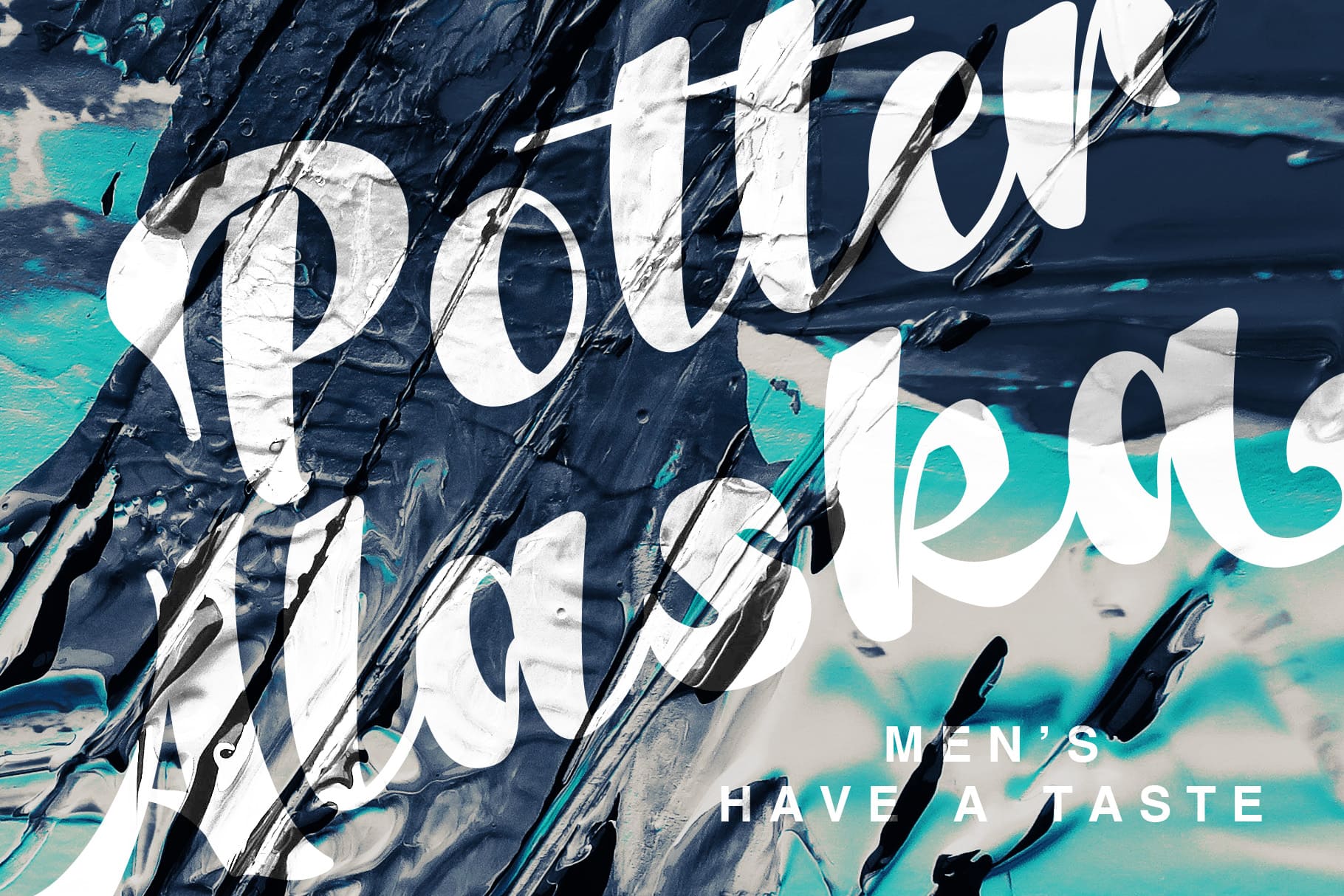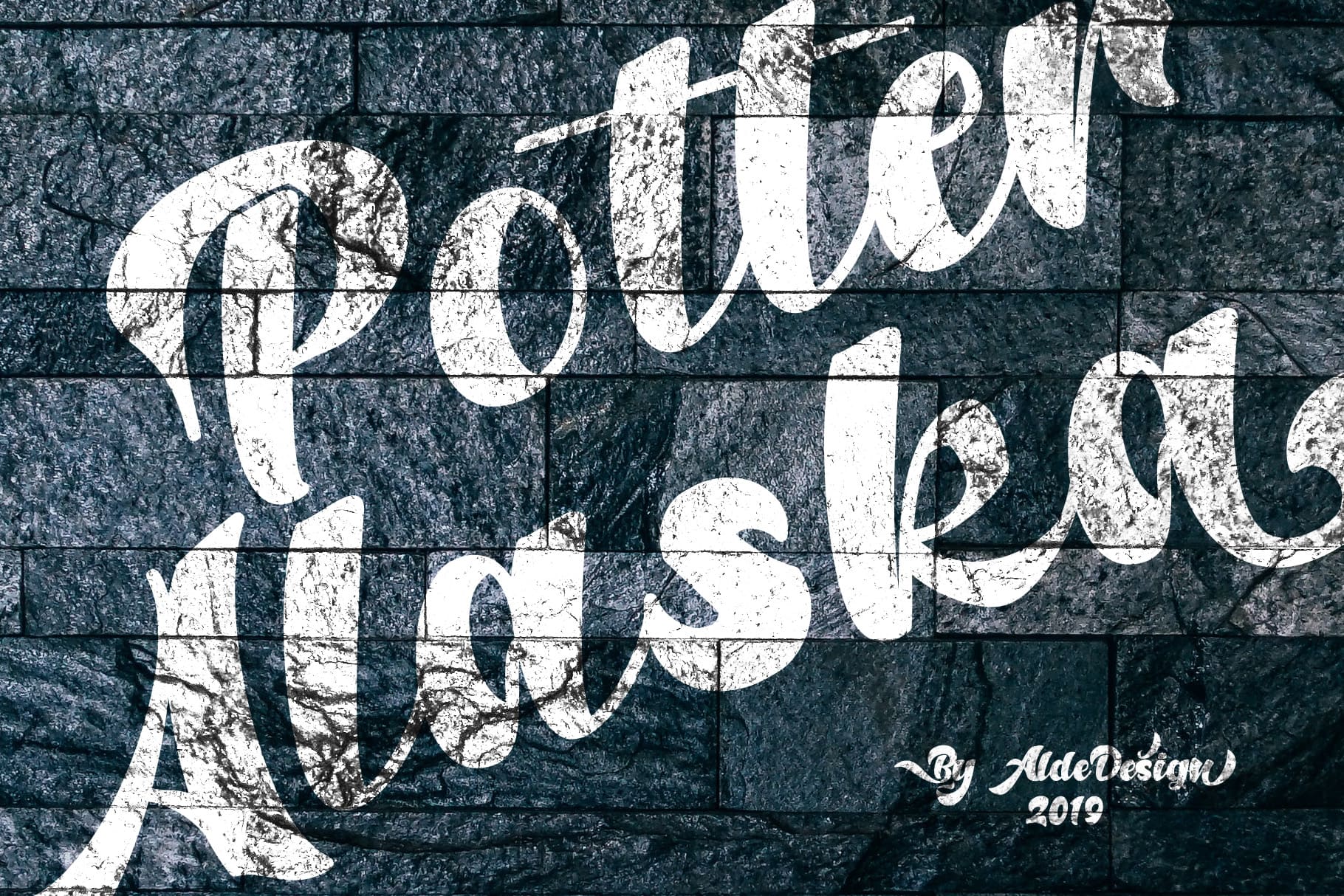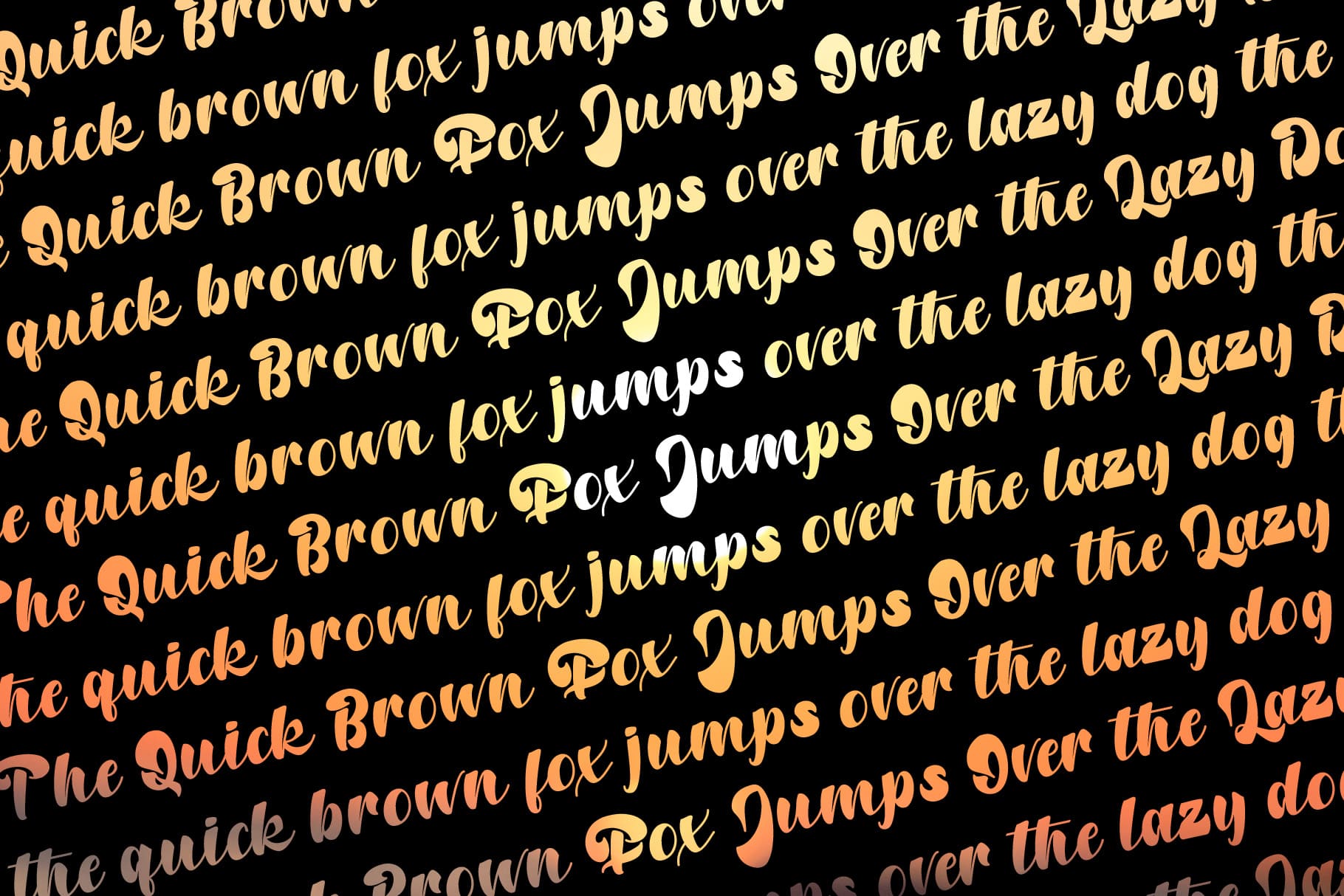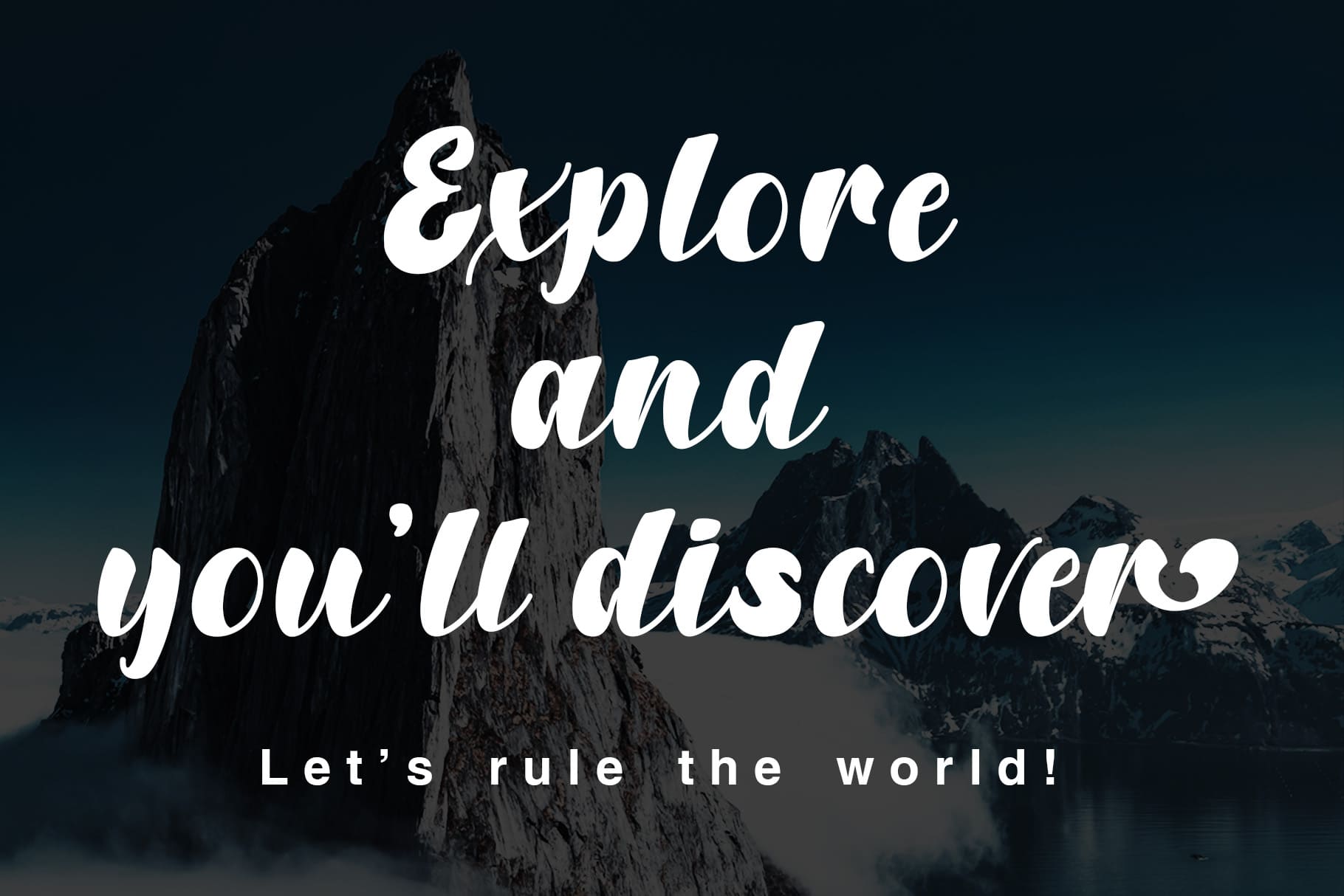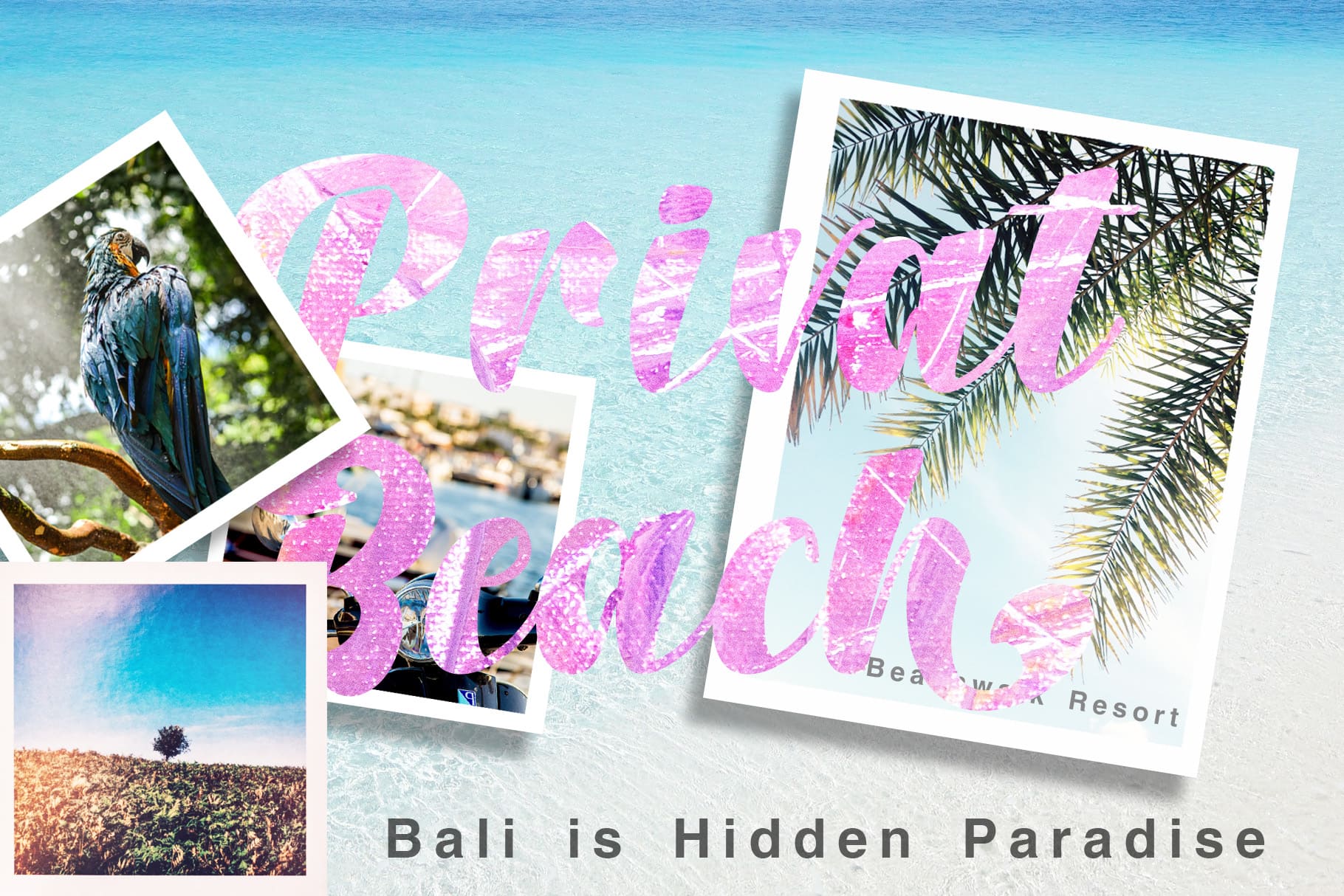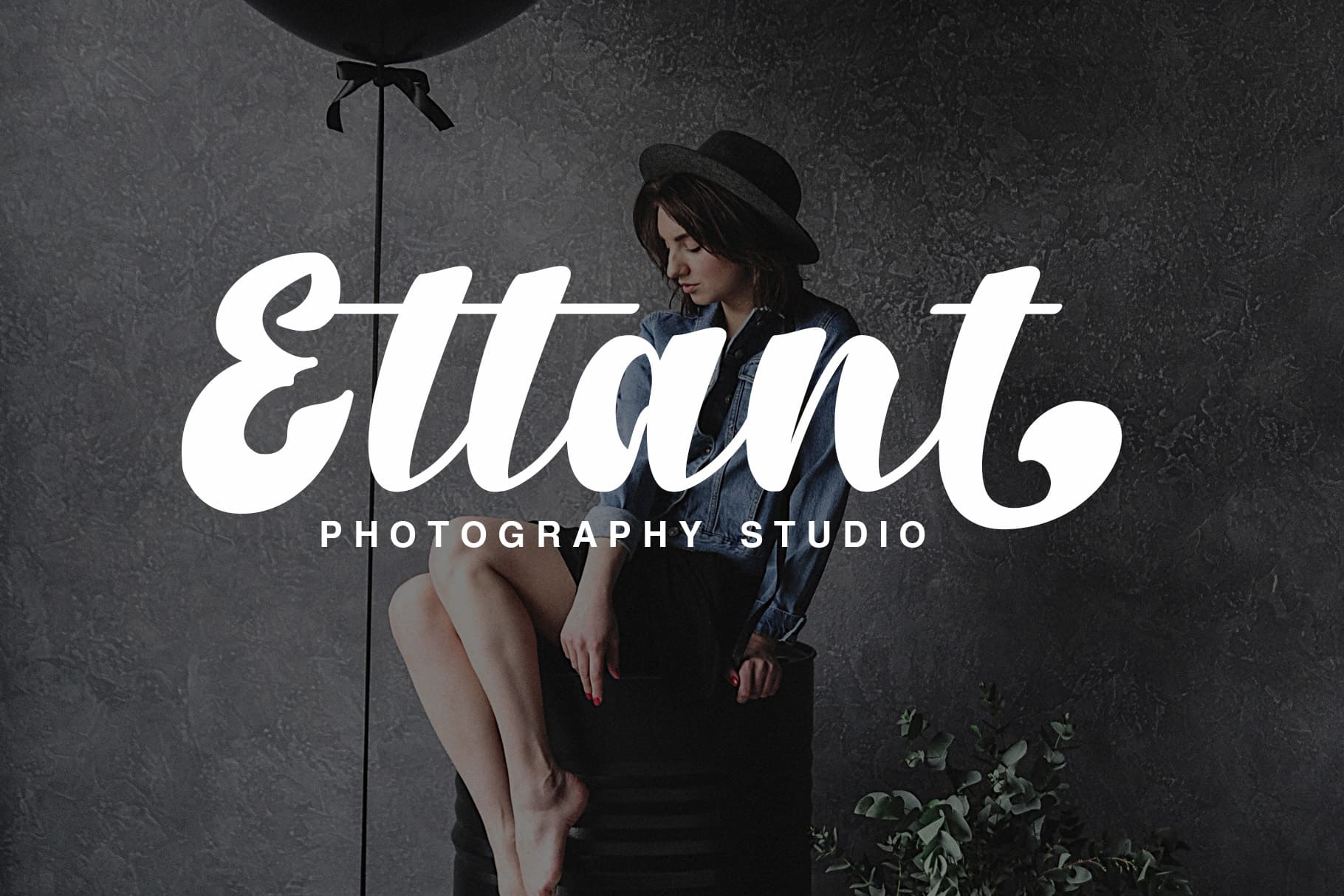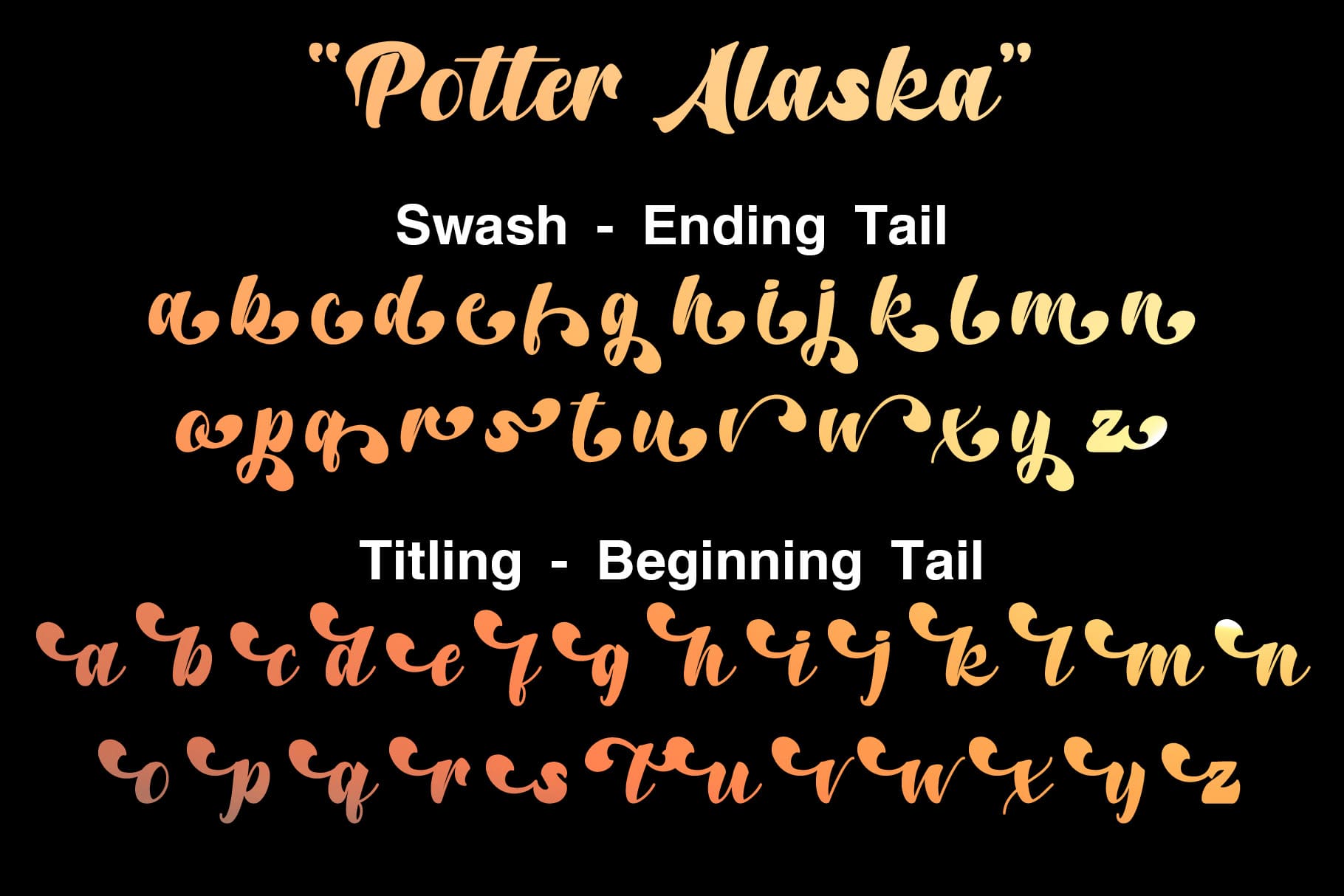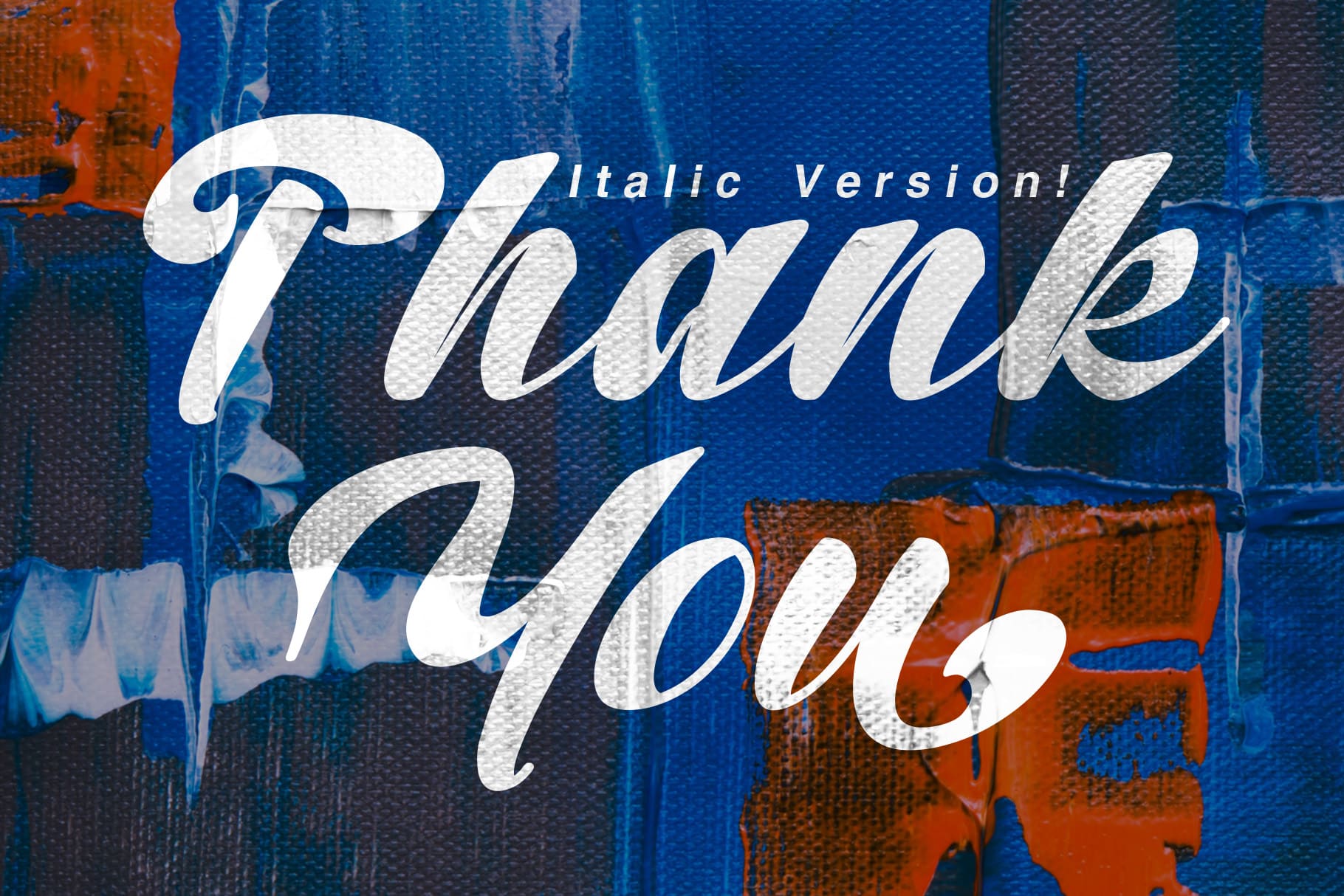
Potter Alaska Family (2 fonts)
From AldeDesign
Potter Alaska font was created to look as close to a readable bold script as possible by including a couple ligatures.